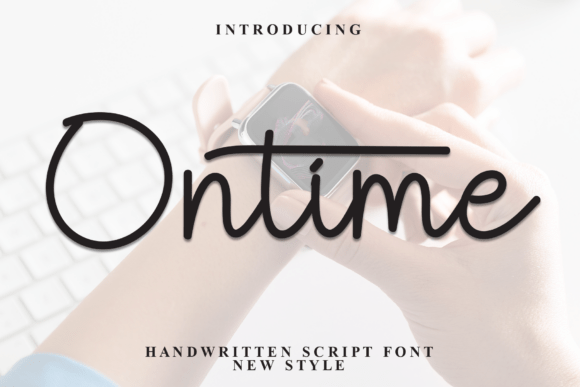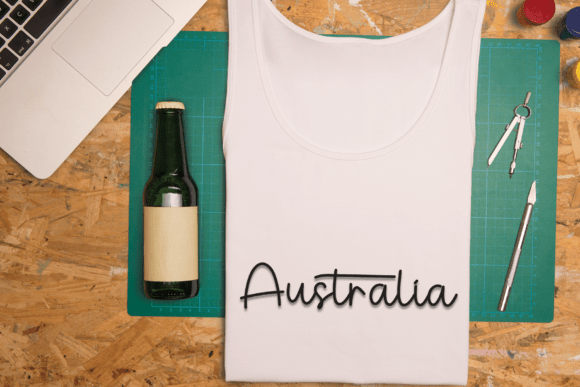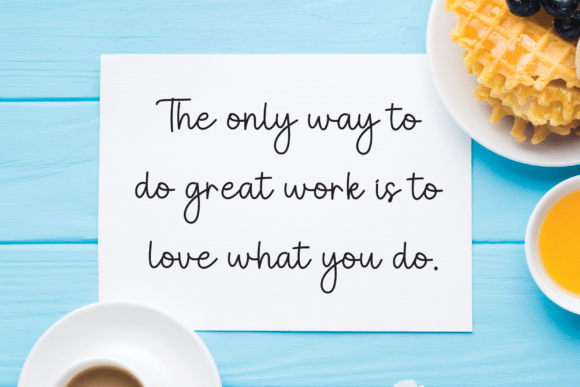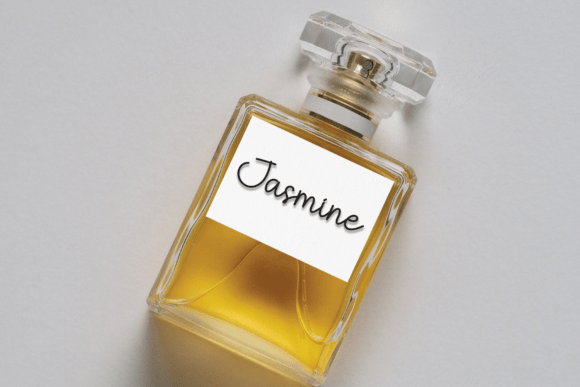
Ontime Font
About the Ontime Font
The wait is over! The incredible Ontime Font is now available for your design toolkit. Elegant and expressive, this script font flows with effortless beauty. Featuring graceful curves and smooth connections, it’s ideal for adding a sophisticated, handwritten feel to wedding invitations, logos, branding projects, and social media graphics. Whether you’re designing something romantic or refined, this script font brings a timeless charm to any design.
Ontime Font’s elegant nature makes it particularly well-suited for projects requiring a touch of sophistication, such as branding for luxury goods, high-end stationery, or wedding invitations. It excels in headlines, short text blocks, and logos, adding a distinctive handwritten feel. However, its script style is less effective for body text or UI elements where readability over long stretches is crucial.
For optimal impact, pair Ontime with a clean sans-serif font like Montserrat or Lato for body copy, ensuring a balance between elegance and readability. Alternatively, a geometric sans-serif such as Futura can create a modern contrast, while a subtle serif like Garamond provides a classic complement.
The overall personality of Ontime is sophisticated and refined, conveying a sense of timeless charm and understated elegance. It is best suited to brands projecting luxury, quality, and a touch of romance.